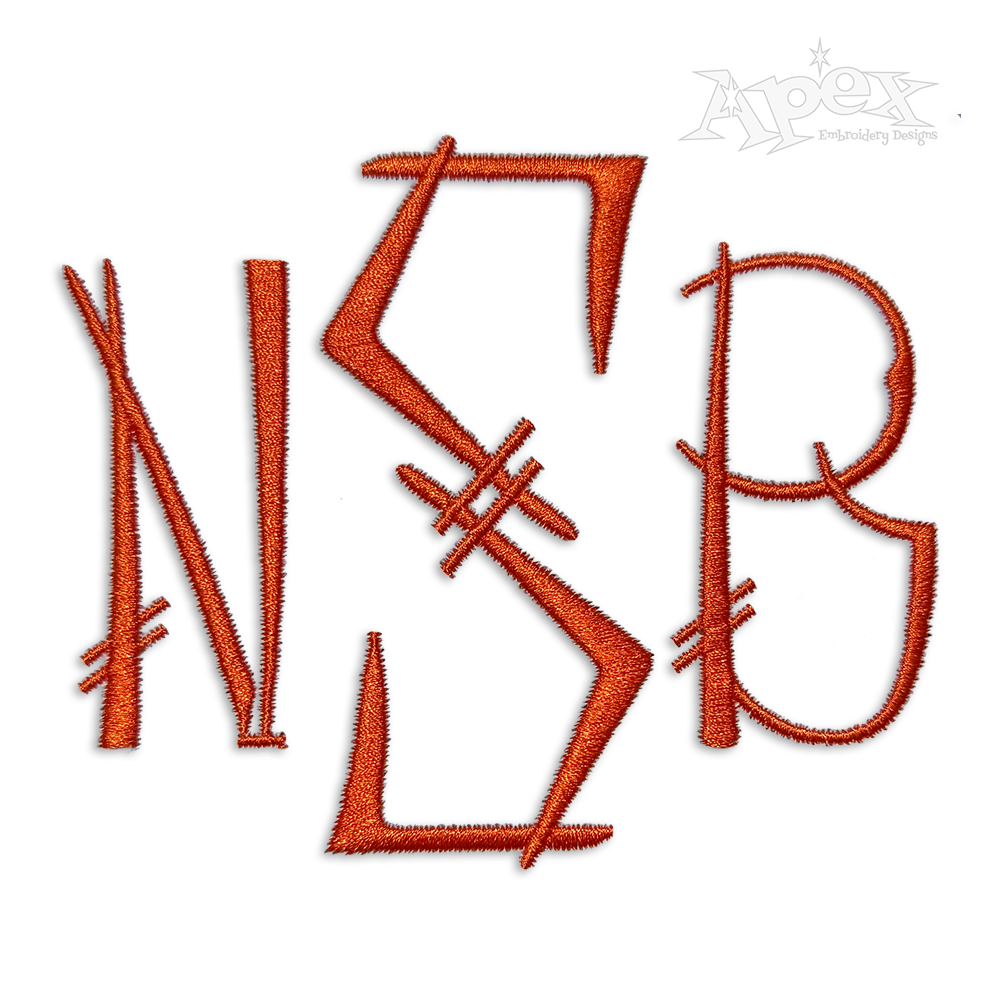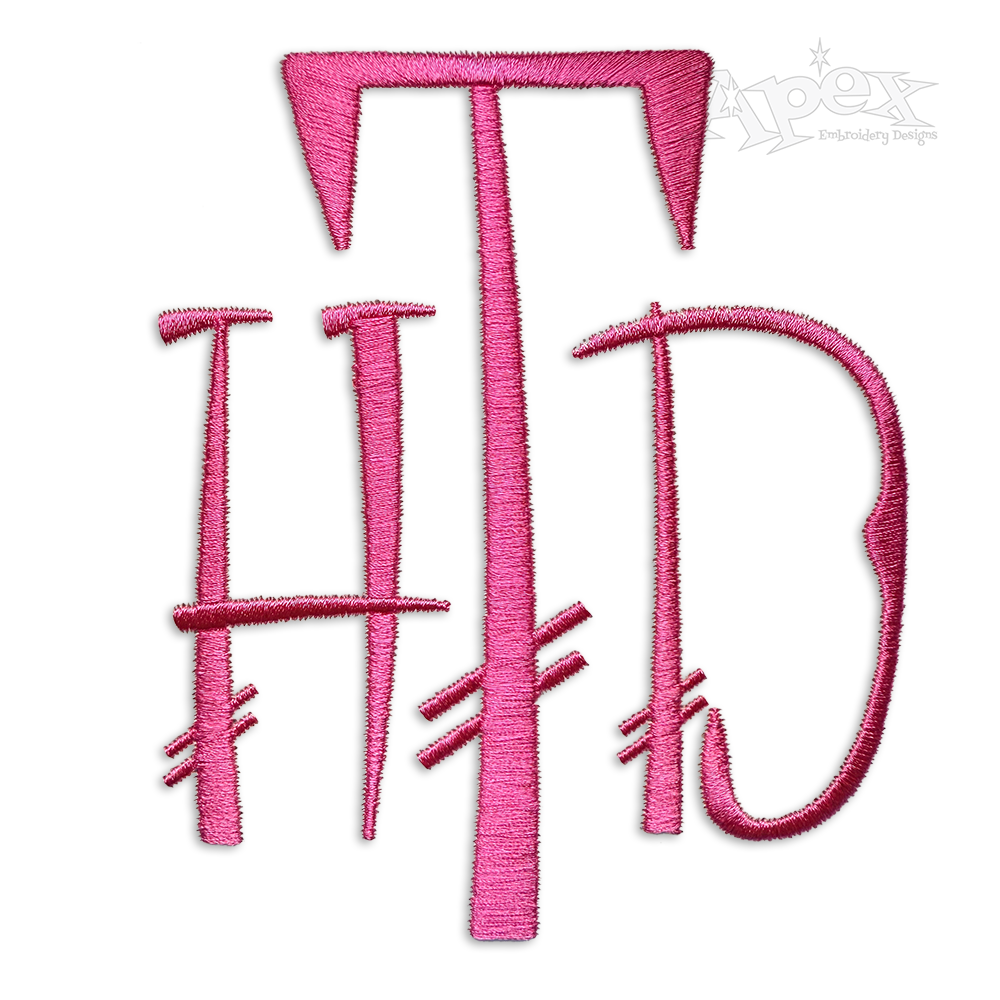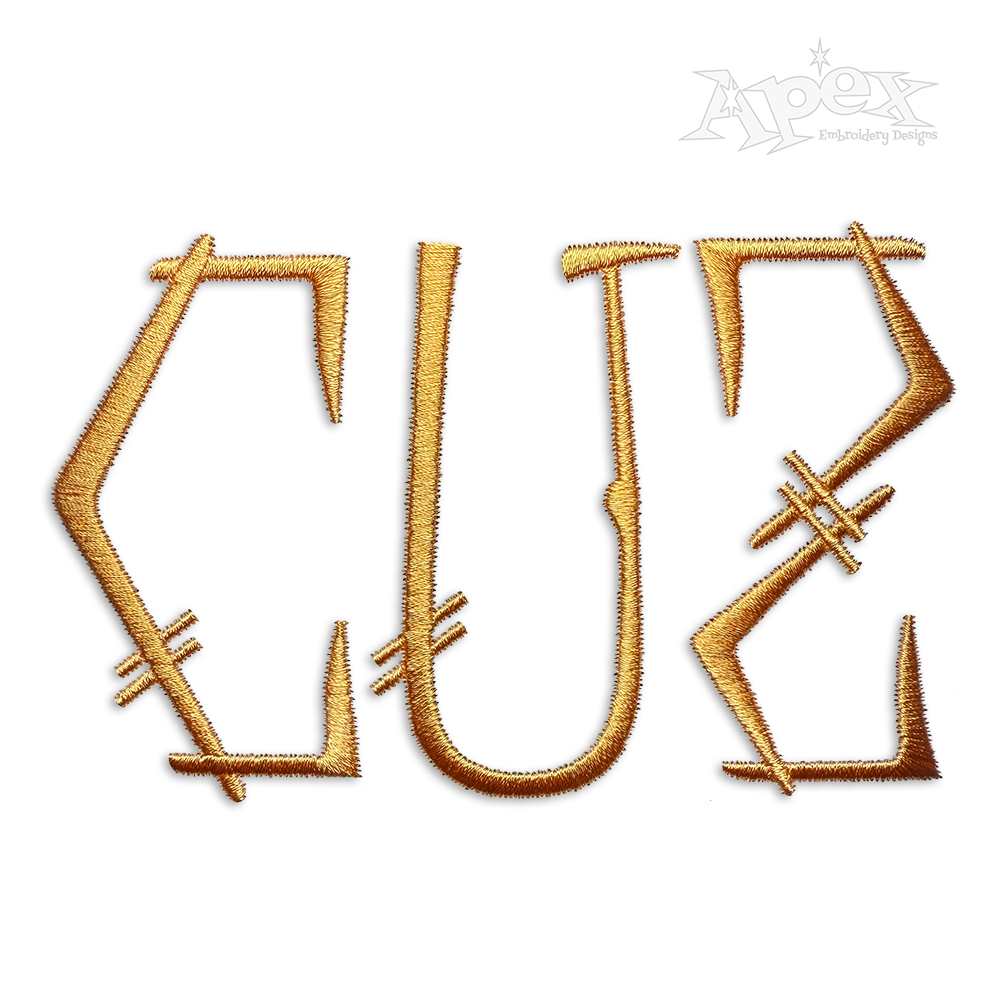
Stylish Bamboo Monogram Embroidery Font
Born from a reverence for coastal heritage and the enduring grace of organic architecture, the Stylish Bamboo Monogram Embroidery Font infuses traditional needlework with an air of breezy, sun-drenched sophistication. Inspired by classic mid-century chinoiserie and vintage Palm Beach estates, each letterform captures the sculptural elegance of living bamboo?complete with carved nodal joints, structural symmetry, and a poised botanical rhythm. Whether rendered in crisp tone-on-tone whites or vibrant tropical hues, this alphabet transforms bespoke textiles into timeless treasures of personal style.
Stylish Bamboo Monogram Craft & Letterform Details
Digitizing bamboo requires far more than tracing rigid lines; it demands an understanding of light, dimension, and physical thread movement. Each segment of the bamboo stalk is crafted with directional satin stitching that naturally catches the light, creating a tactile interplay of highlights and shadows reminiscent of polished cane. The distinctive nodal rings?the knuckles of the stalk?are deliberately layered with calibrated underlay and subtle angle shifts, giving them authentic raised relief without creating excessive thread buildup.
The letterforms strike an intentional harmony between architectural firmness and calligraphic fluidity. Serifs emerge as natural shoot nodes, while gracefully bowed vertical stems reflect the flexible resilience of real bamboo culms. By balancing satin stitch widths with specialized push-pull compensation across all four scales, every letter maintains its sharp edge fidelity and lustrous sheen on everything from gauzy linen to textured canvas.